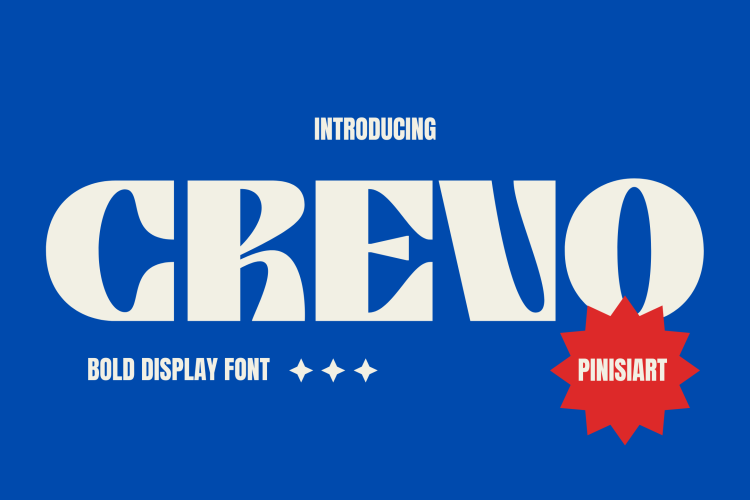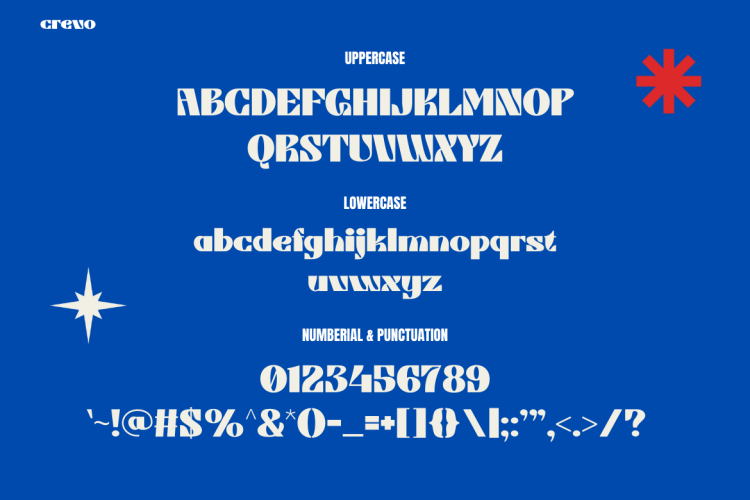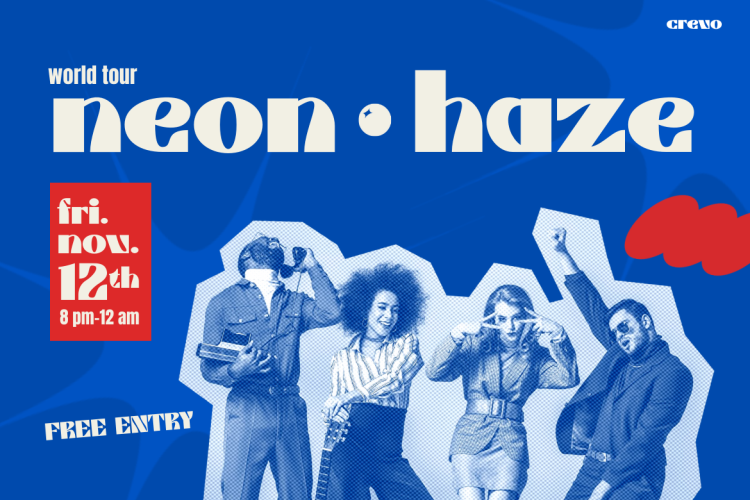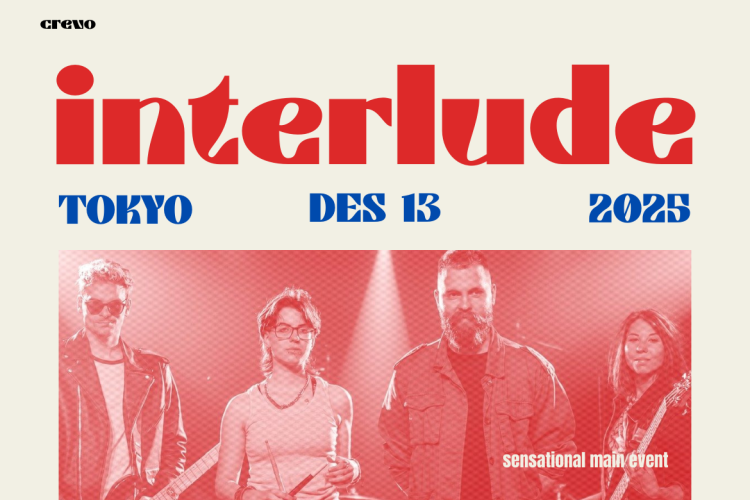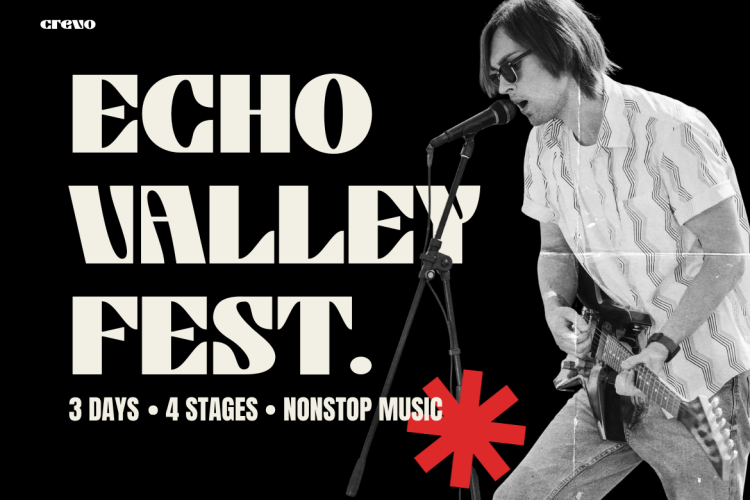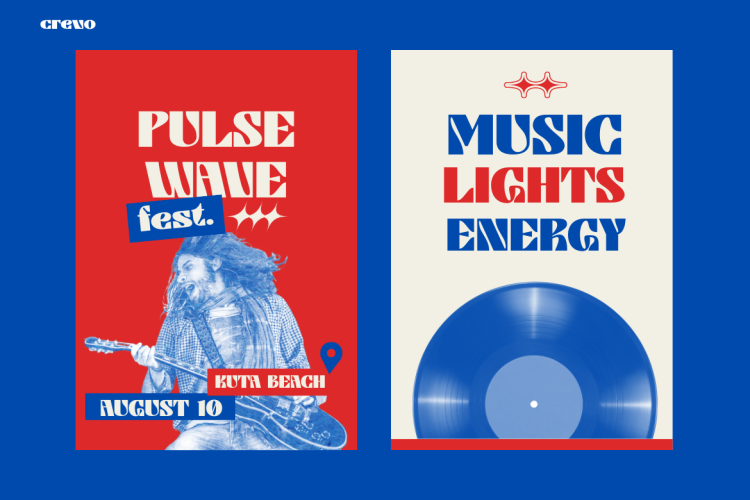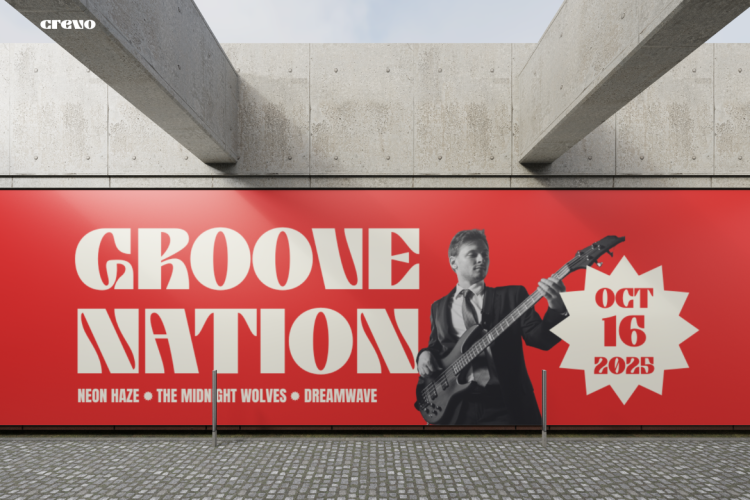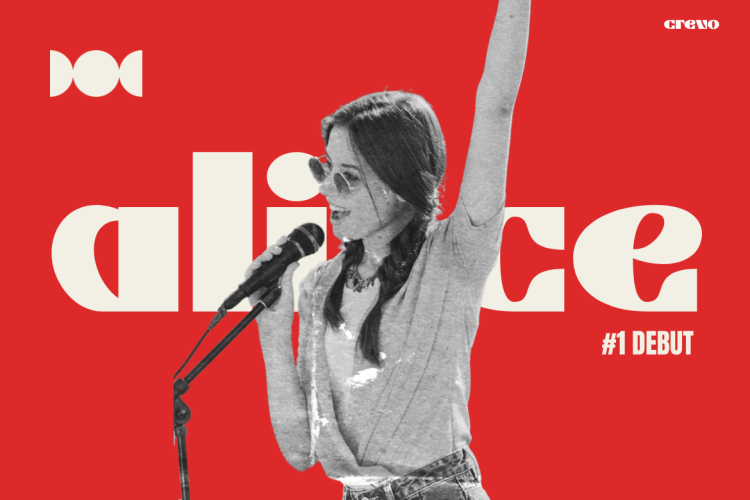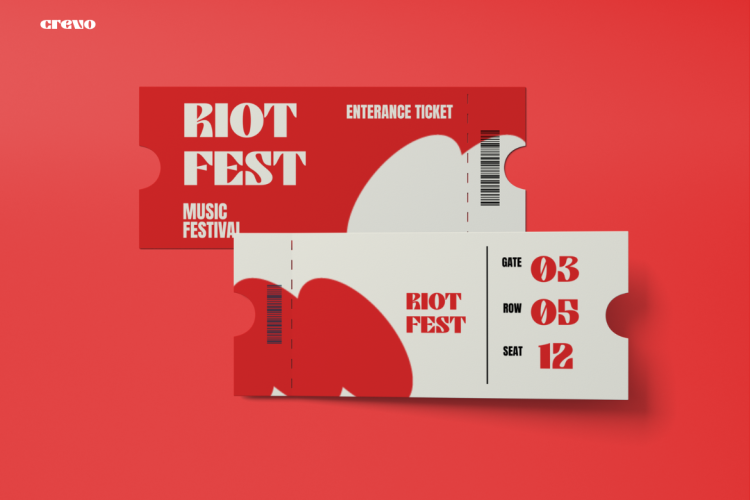
Instagram Font CREVO โ Bold, Stylish, and Versatile
Instagram Font CREVO is a bold and unique typeface that instantly grabs attention. Moreover, its playful yet strong shapes make it perfect for modern design. The balance between sharp edges and smooth curves creates a look that feels fresh and exciting. Therefore, when you use this font, your text transforms into a visual statement that is both stylish and powerful.
This font is more than just attractiveโit is also functional. It reads well at large sizes, so it shines on posters and banners. In addition, the bold personality makes it suitable for digital campaigns, packaging, and merchandise. Every letter carries energy, and as a result, your design gains a confident tone that cannot be ignored.
Perfect For Designers and Creators
Instagram Font CREVO is a bold, stylish, and versatile typeface perfect for posters, branding, and social media designs that demand attention.is ideal for designers who want their work to stand out. If you design event posters, it delivers a bold headline style. Furthermore, social media creators will find it useful for eye-catching Instagram stories and posts. Musicians, DJs, and event organizers can also rely on it for festival branding, tickets, and promotions.
In addition, this font works well for fashion brands that want to highlight modern and confident style. Startups and creative businesses can use it to establish a strong identity. However, it is not limited to professionalsโcontent creators, influencers, and students can also enjoy its impact for personal projects.
Why Choose CREVO?
Good design is about impact, and this font gives you exactly that. Moreover, Instagram Font CREVO adapts easily from digital layouts to print, so you stay consistent across platforms. The mix of retro charm and modern boldness also makes it timeless. As a result, your work will not only look trendy but will also remain relevant in the future.